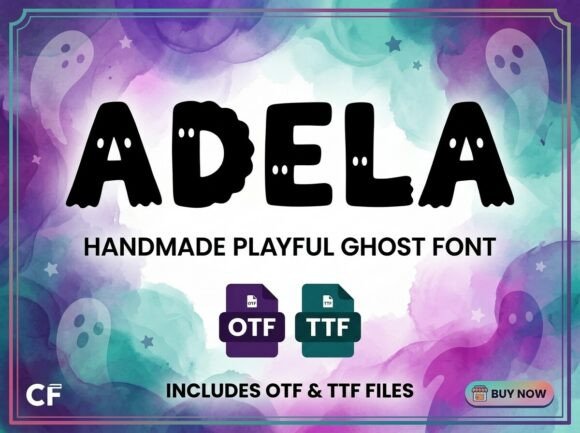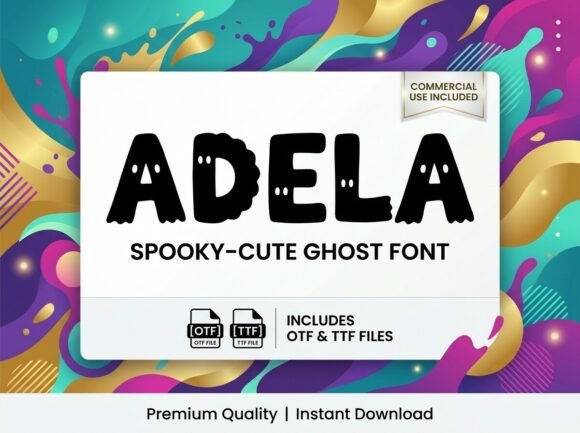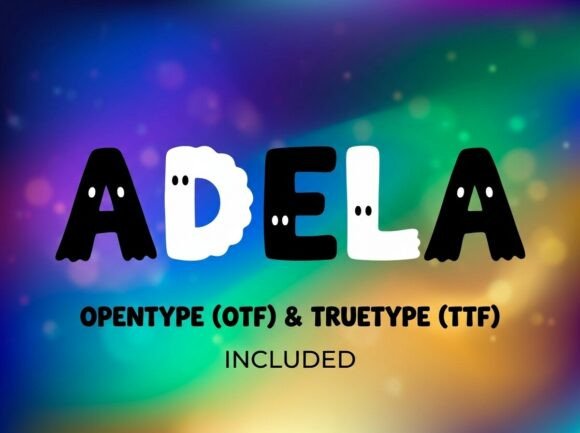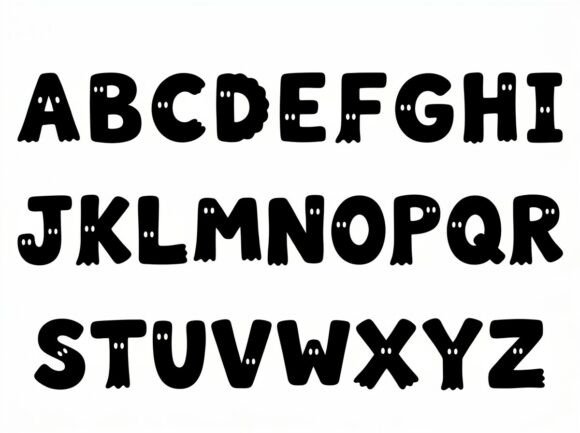
Introducing Adela Font: Elevate Your Creative Projects with a Decorative Display Font
Are you tired of using the same old fonts for your creative projects? Do you want to add a touch of elegance and sophistication to your designs? Look no further than Adela Font, a decorative display font designed to be the centerpiece of any layout. With its distinct artistic elements and strong character, Adela Font is perfect for creators who want to break away from the ordinary and elevate their designs to the next level.
What Makes Adela Font Special?
Adela Font is a unique and stylish font that is designed to make a statement. Its bold and artistic elements make it perfect for a variety of creative projects, from bold headlines to creative branding and packaging. The font delivers a high-end, professional aesthetic without compromising on personality, making it ideal for designers and crafters who want to add a touch of sophistication to their work.
Key Features of Adela Font
Adela Font comes with a range of features that make it a versatile and practical choice for designers and crafters. These include:
Technical Note: All-Caps Display Typeface
It’s worth noting that Adela Font is an all-caps display typeface, which means that it does not contain lowercase letters. This design choice makes the font a powerful tool for logos, titles, and decorative initials, where a bold and striking font is often desired. While it may not be suitable for body text or other applications where lowercase letters are required, Adela Font is perfect for designers who want to create eye-catching headlines, titles, and other decorative elements.
Uses for Adela Font
Adela Font is a versatile font that can be used for a wide range of creative projects, including:
- Branding and Packaging: The font’s bold and artistic elements make it perfect for branding and packaging projects, where a high-end, professional aesthetic is desired.
- Headlines and Titles: Adela Font is ideal for creating bold and eye-catching headlines and titles, making it perfect for designers who want to add a touch of drama and flair to their work.
- Logos and Icons: The font’s strong character and artistic elements make it perfect for logos and icons, where a bold and striking font is often desired.
Why Choose Adela Font?
So why choose Adela Font for your creative projects? Here are just a few reasons:
- Unique and Stylish: Adela Font is a unique and stylish font that is designed to make a statement. Its bold and artistic elements make it perfect for designers who want to add a touch of elegance and sophistication to their work.
- Perfect for Creative Projects: Adela Font is perfect for a wide range of creative projects, from branding and packaging to headlines and titles.
In conclusion, Adela Font is a decorative display font that is designed to elevate your creative projects to the next level. With its distinct artistic elements and strong character, it is perfect for designers and crafters who want to add a touch of elegance and sophistication to their work. Whether you’re working on a branding project, creating bold headlines, or designing logos and icons, Adela Font is a versatile and practical choice that delivers a high-end, professional aesthetic without compromising on personality.